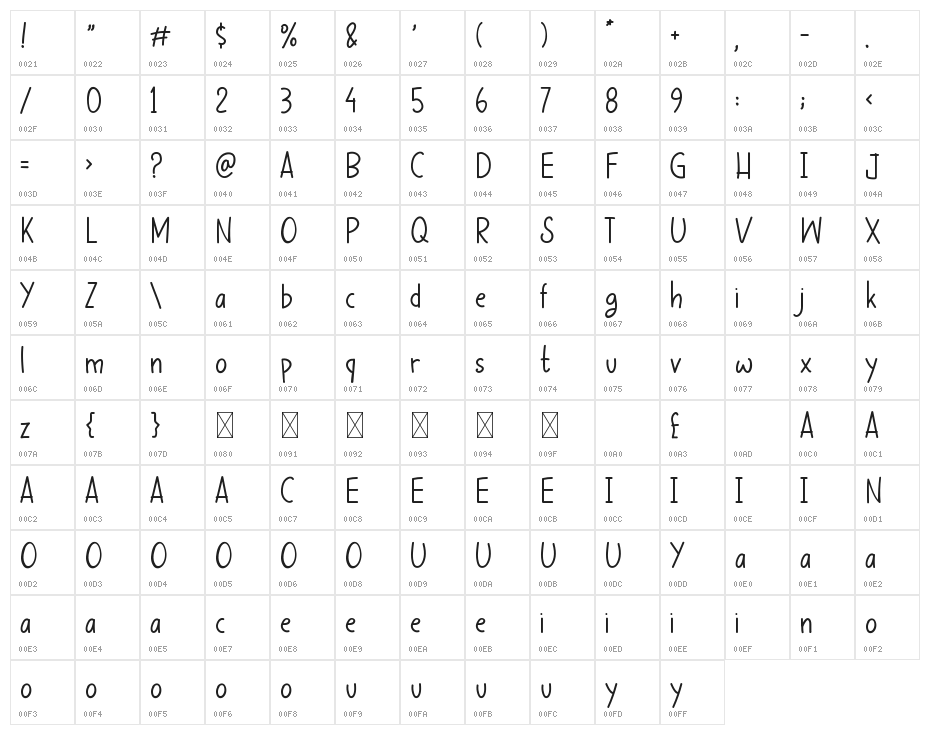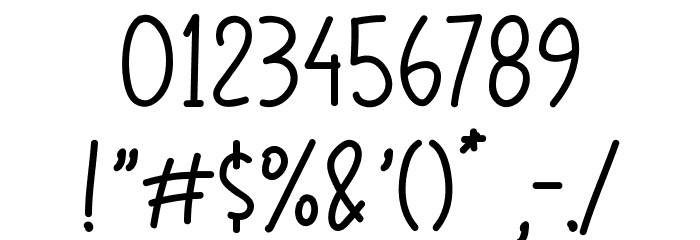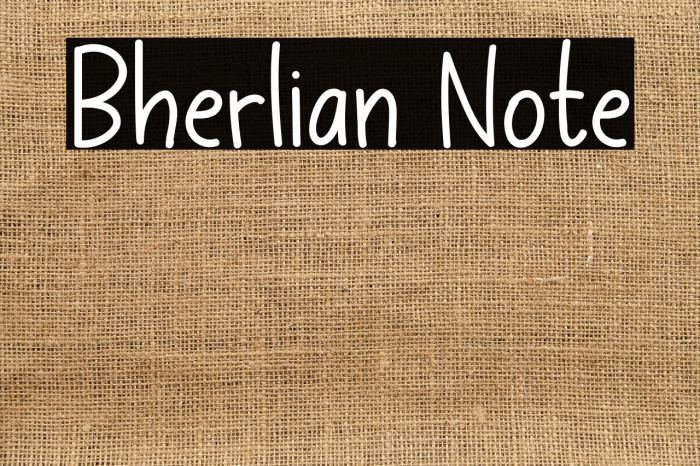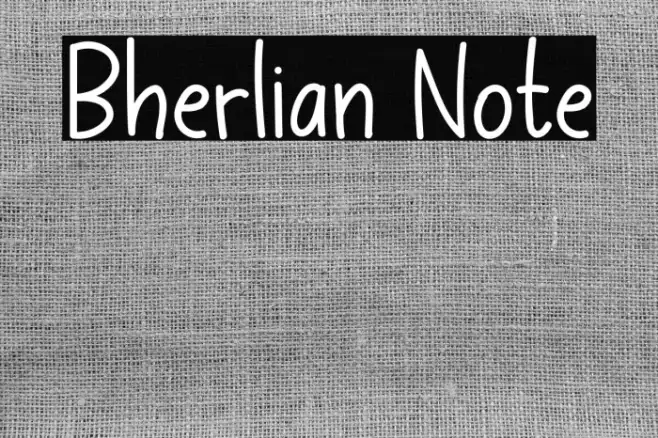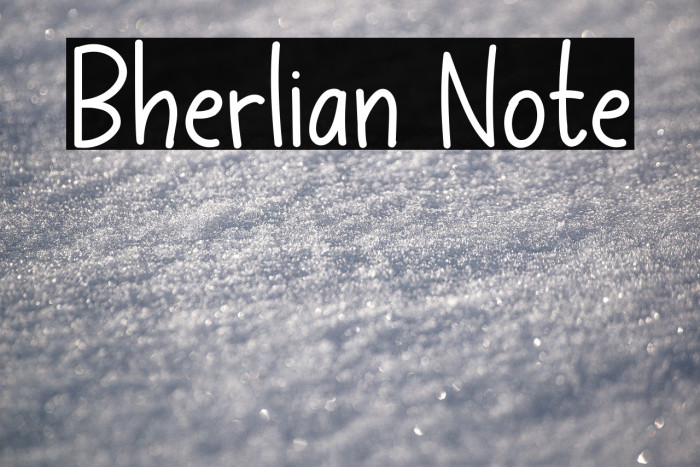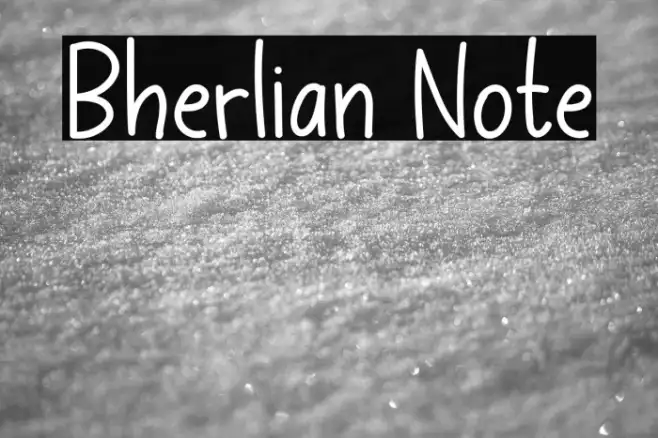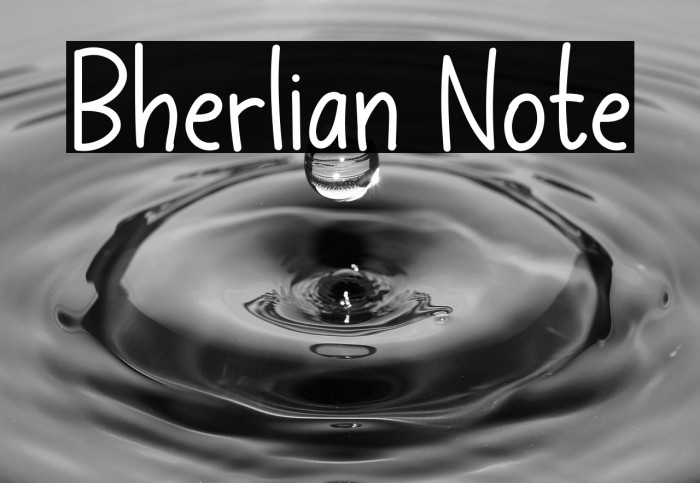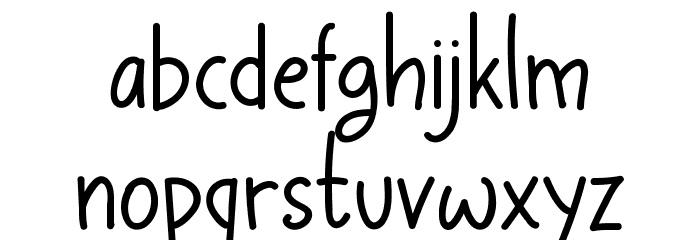
Bherlian Note Font
Bherlian Note Description
This font features a playful and casual handwritten style, characterized by its smooth curves and slightly irregular letterforms. The uppercase letters are tall and narrow, while the lowercase letters have a more rounded appearance, giving the font a friendly and approachable feel. The numerals are consistent with the overall style, maintaining the same playful and informal aesthetic. Special characters are included, complementing the font's whimsical nature. The strokes are consistent in thickness, providing a uniform look across all characters.
| Use Case | Headlines, Informal text, Branding |
| Proposed Projects | Ideal for children's books, greeting cards, casual branding, and playful social media graphics. |